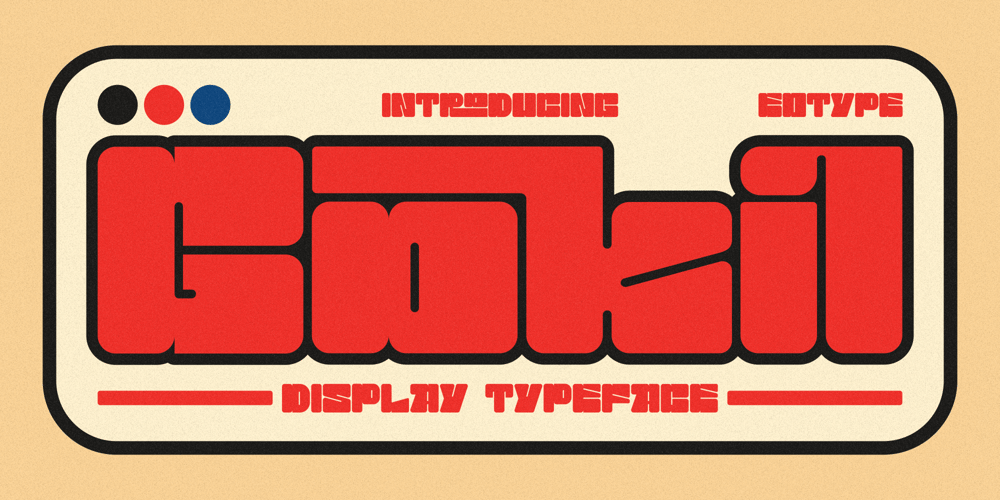
Gokil
Gokil font
Gokil Font Family was designed by Fajar Ramadan and published by Eotype. Gokil contains 1 styles and family package options. Gokil is an unique bold display font with rounded edges. You can use this font in retro, vintage, and hipster designs. This font is perfect for a variety of projects, such as branding, poster displays, logo designs, magazines, headlines, stickers, and more.This font also has alternate and ligature features.